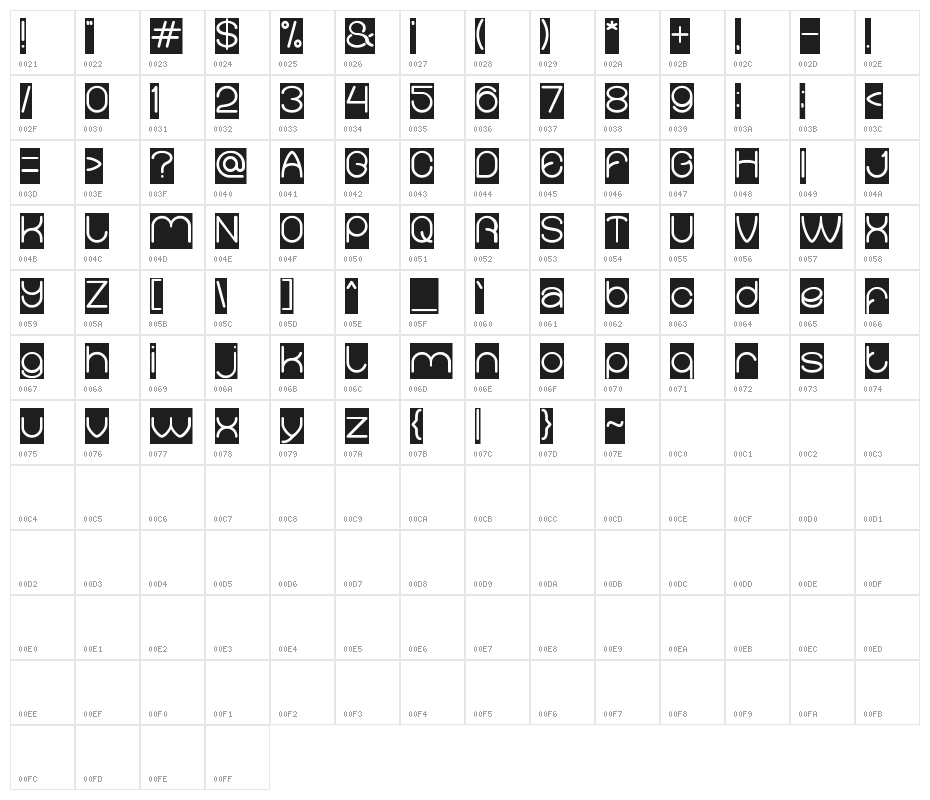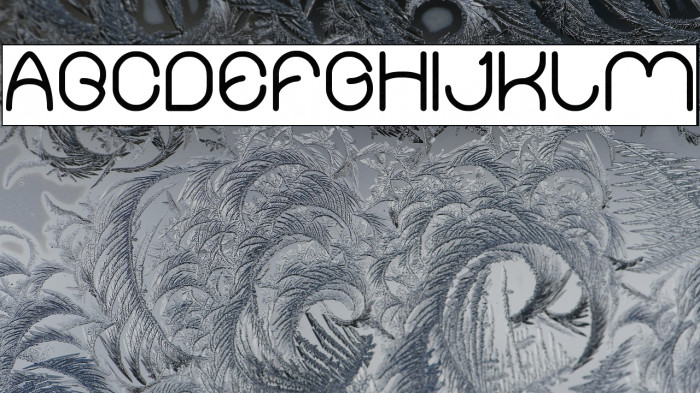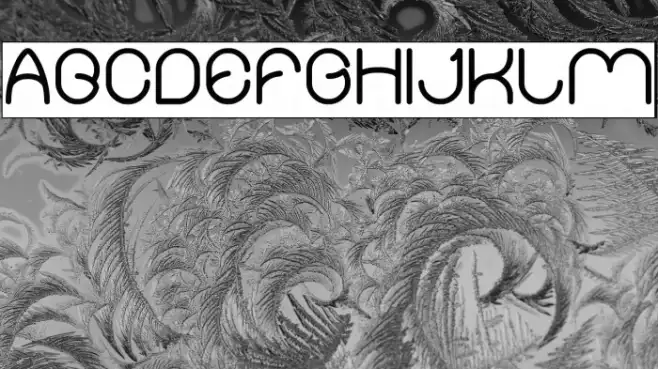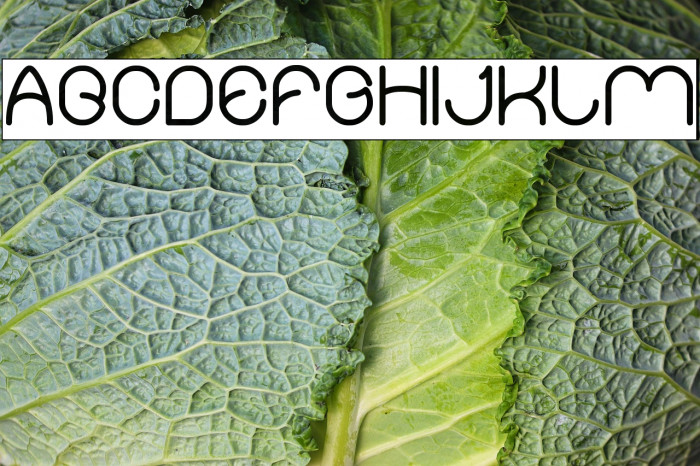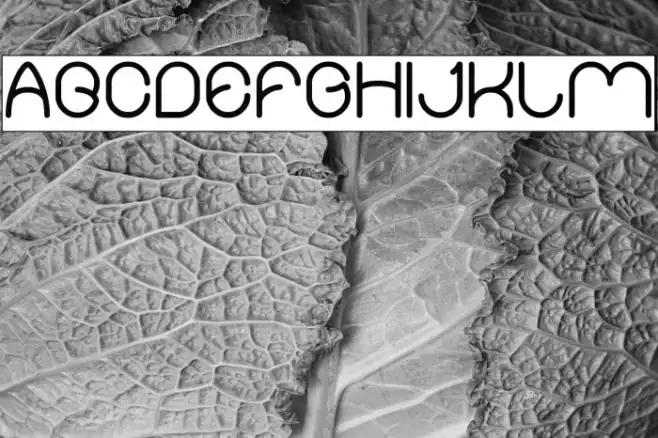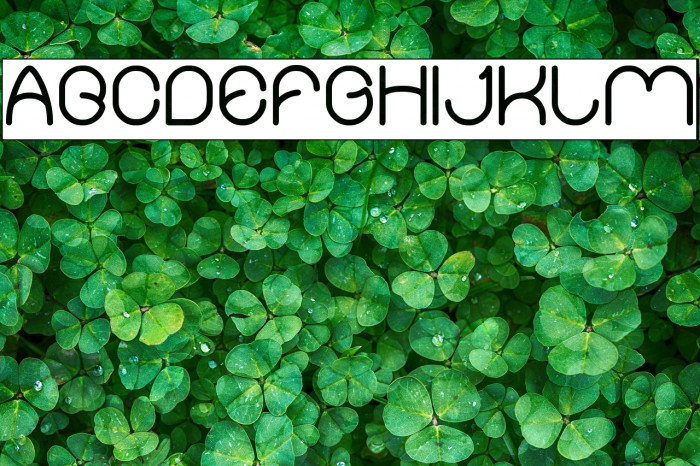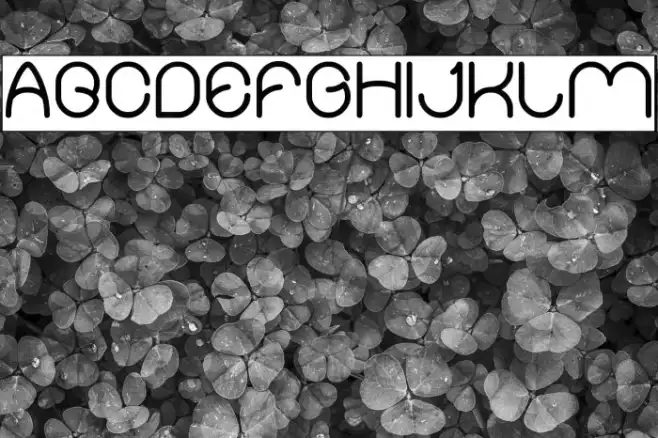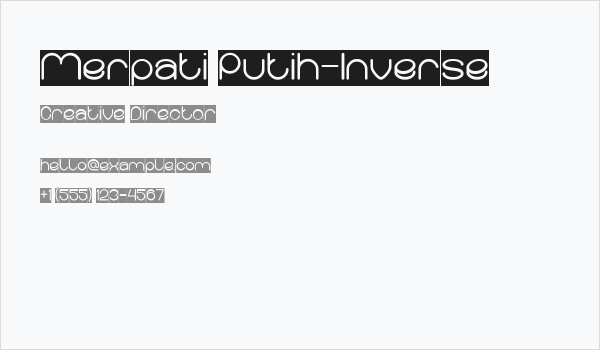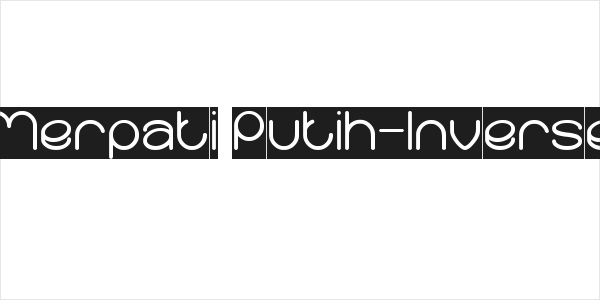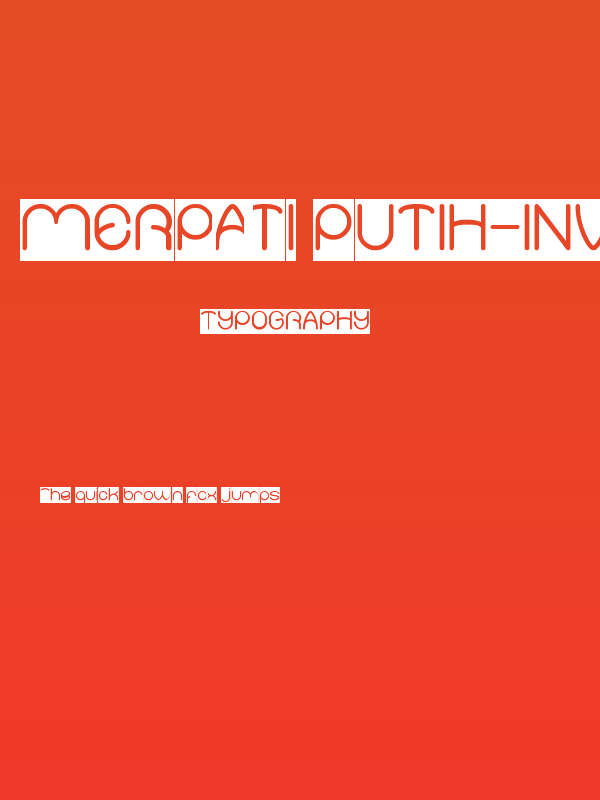
Merpati Putih-Inverse Font
Merpati Putih-Inverse Description
This font features a unique and artistic design with a modern twist. The characters are composed of smooth, continuous lines that create a flowing and cohesive appearance. The uppercase letters maintain a consistent height, while the lowercase letters have a playful and slightly whimsical style. The numbers are bold and clear, making them easily readable. Special characters are creatively integrated, maintaining the overall aesthetic. The font's design is both decorative and functional, making it suitable for a variety of creative projects.